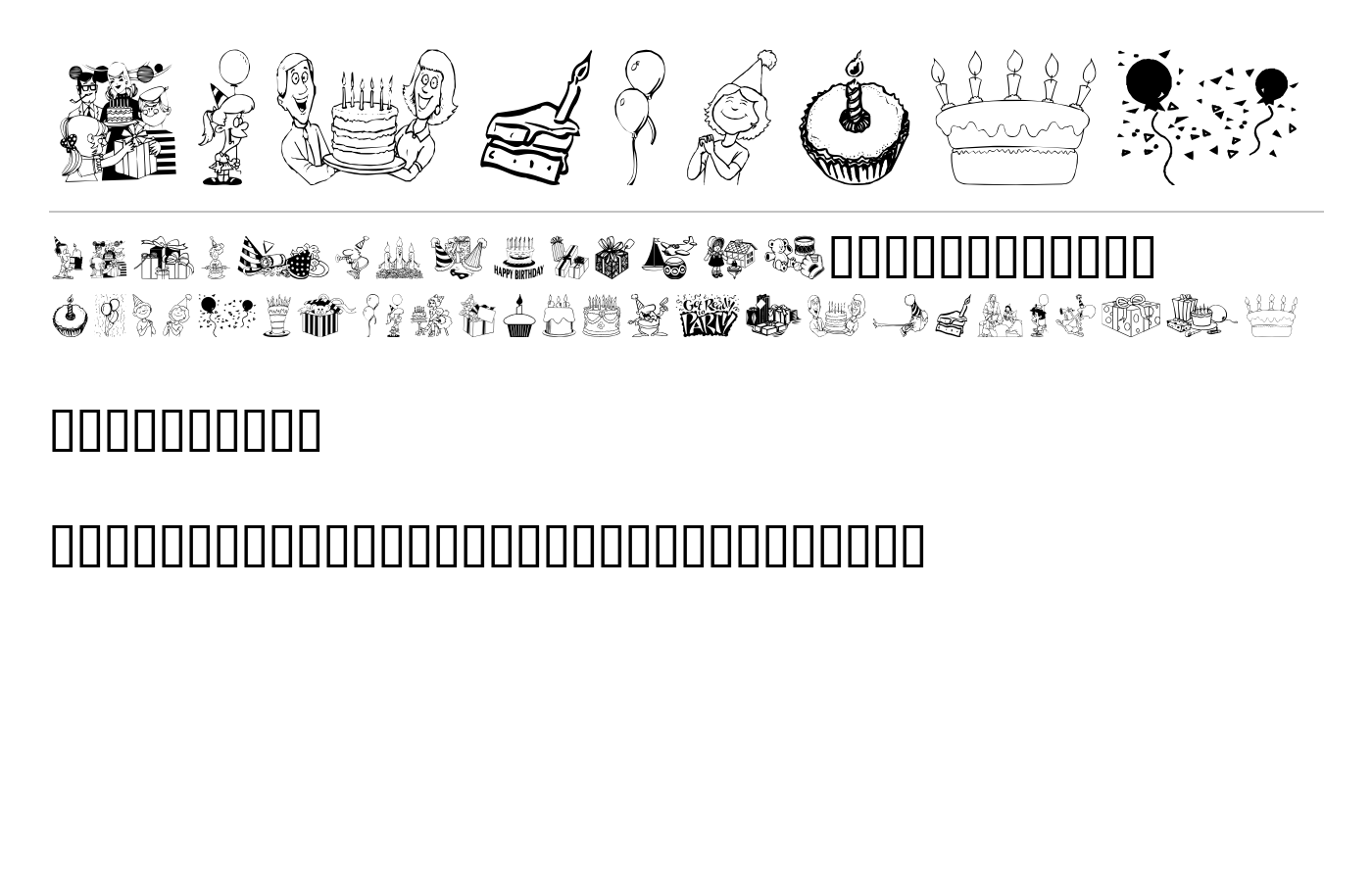
Birthdaze Font is a playful symbol font featuring charming, hand-drawn birthday-themed illustrations like cakes, balloons, and party scenes. It’s perfect for adding a festive and whimsical touch to invitations, greeting cards, and party decorations, offering a fun and casual vibe that captures celebration and joy. This font works best in larger sizes where its detailed icons can shine and bring a lively personality to any birthday project.
Birthdaze Font